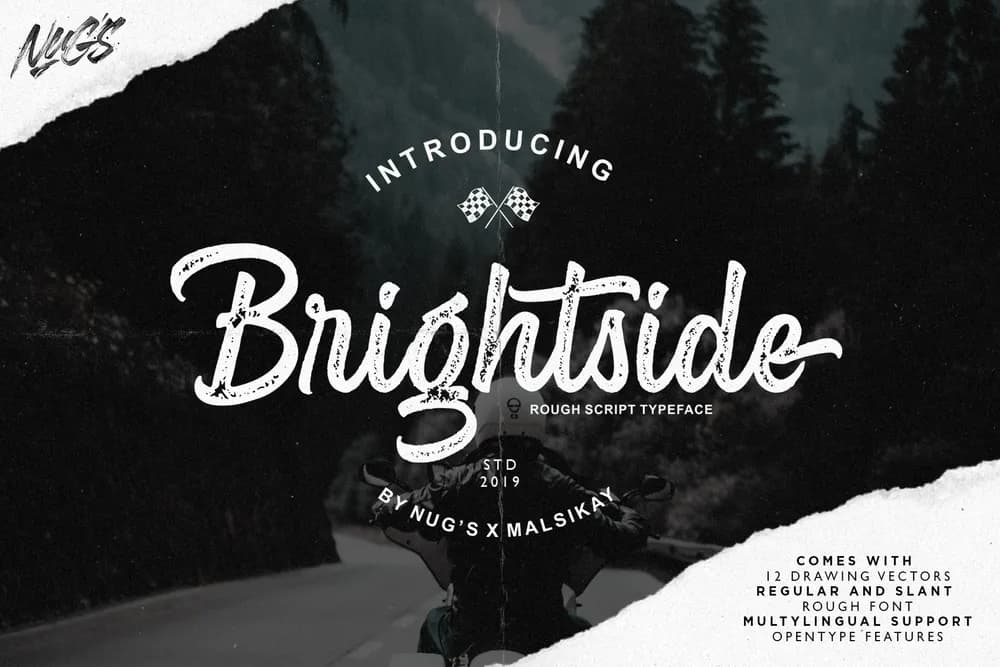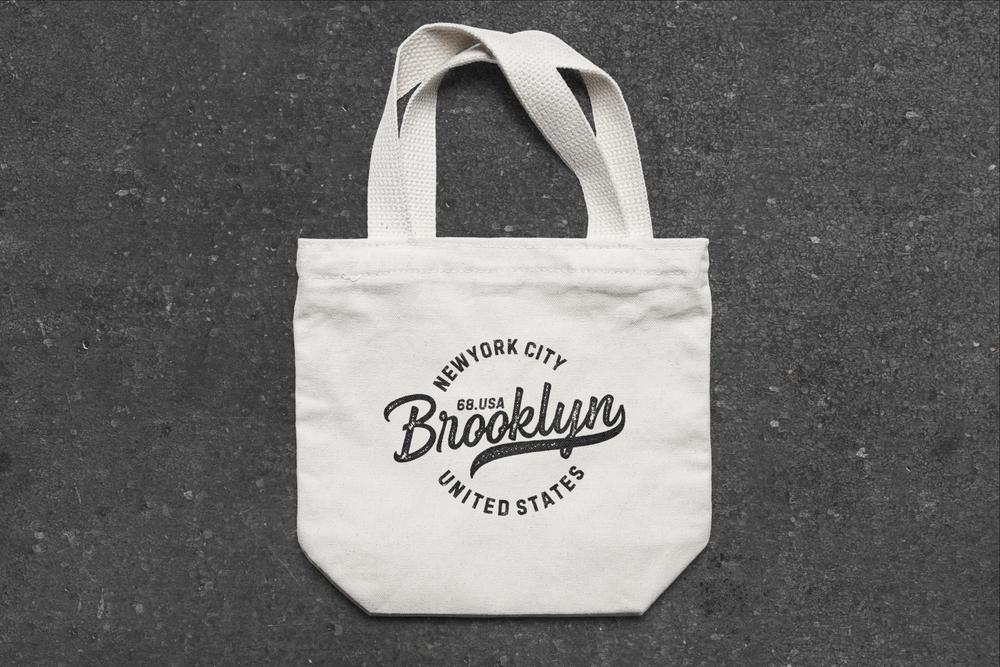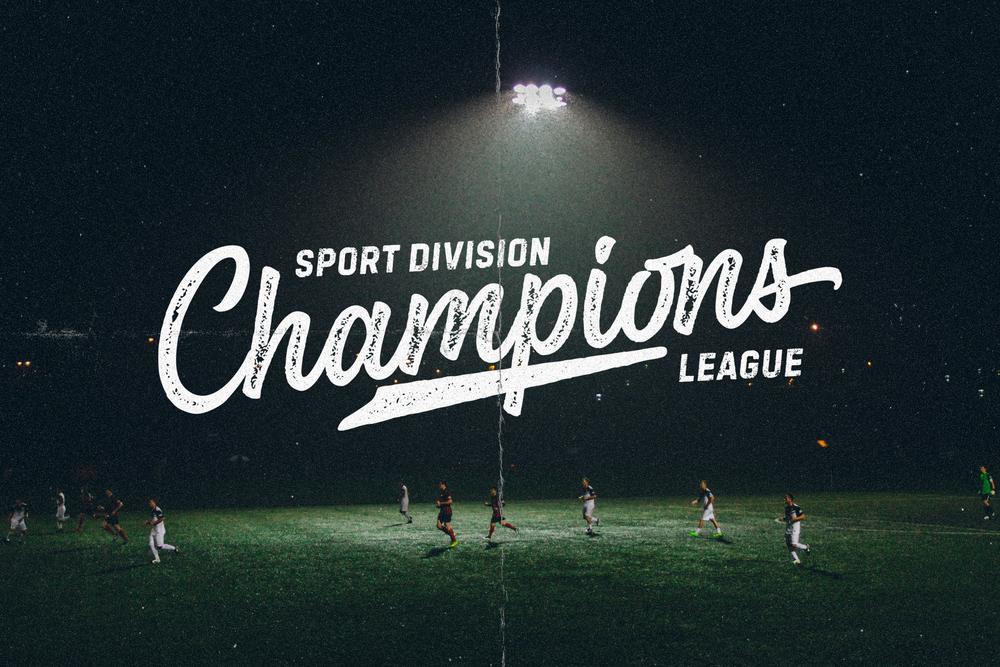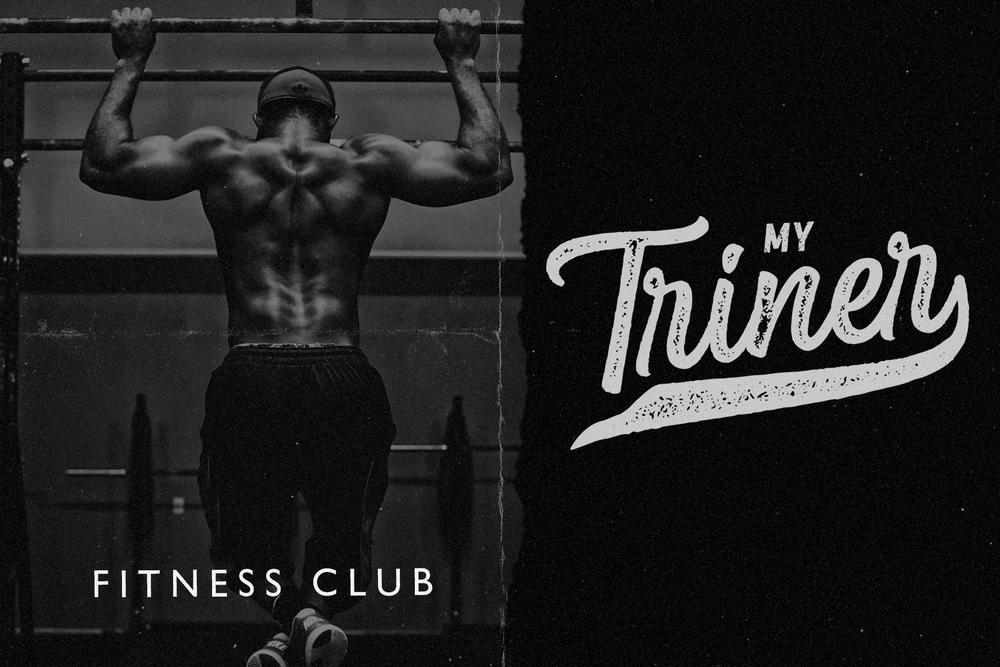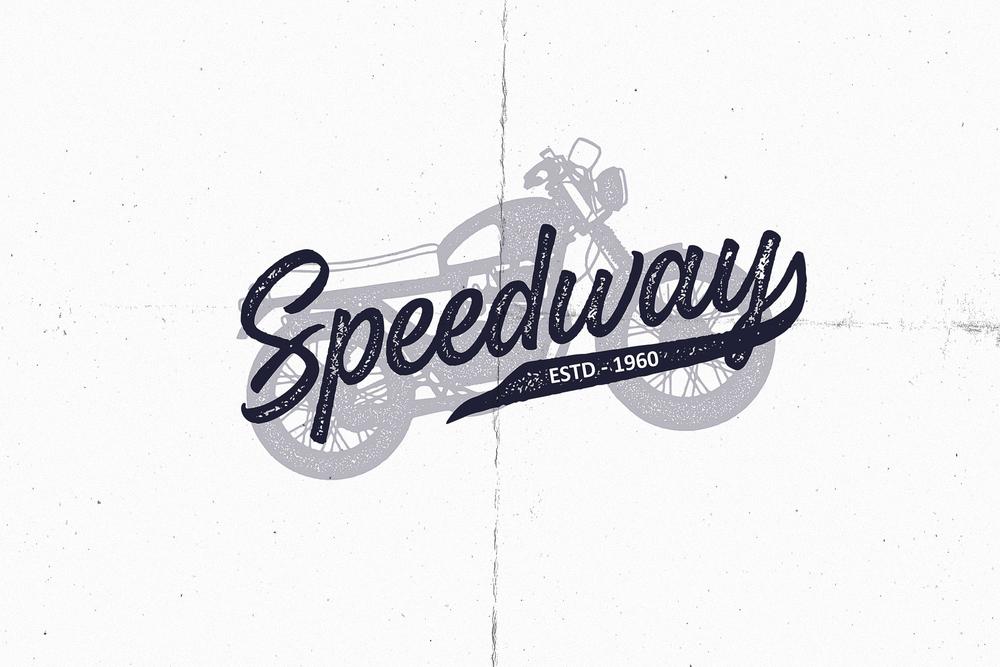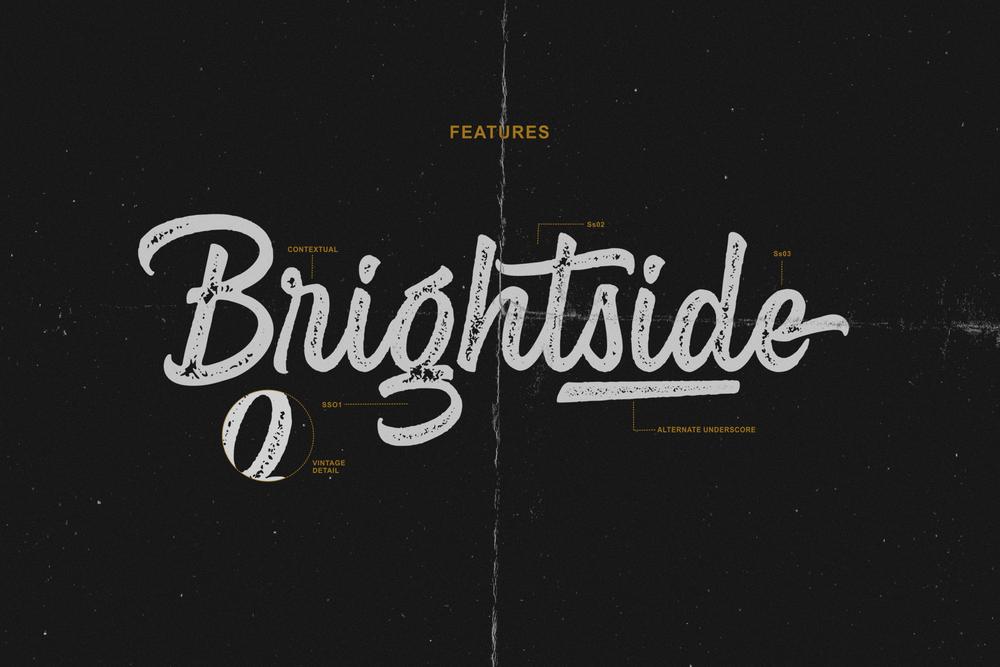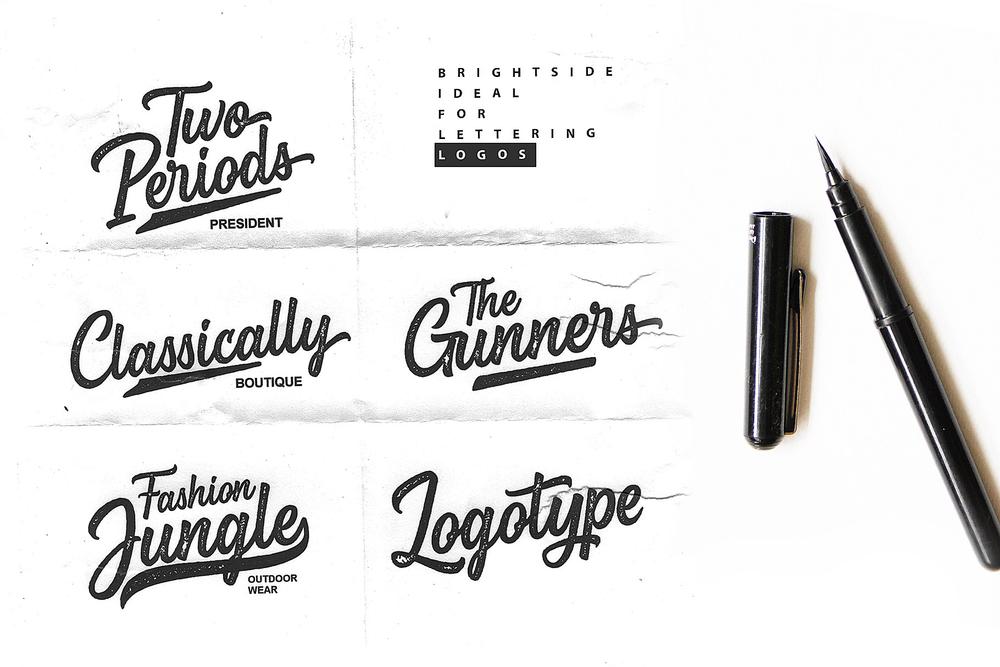
Brightside is a script font with a vintage style with a rough texture that makes your design bolder.. Brightside its Sporty and great to playing typography, or your logos , your shop, Logos, catalog , all about of fashions and arts. 𝐅𝐞𝐚𝐭𝐮𝐫𝐞𝐬 : ☛ Alternates ☛ Uppercase & lowercase letters ☛ Numerals & punctuation ☛ Multilingual support ☛ Bonus Drawing Vector ☛ PUA Encode ☛ Slant & Regular font 𝐅𝐨𝐫𝐦𝐚𝐭 : OTF, TTF, EPS and WOFF. How to get access alternate glyphs from open type fonts check this link : http://adobe.ly/1m1fn4Y